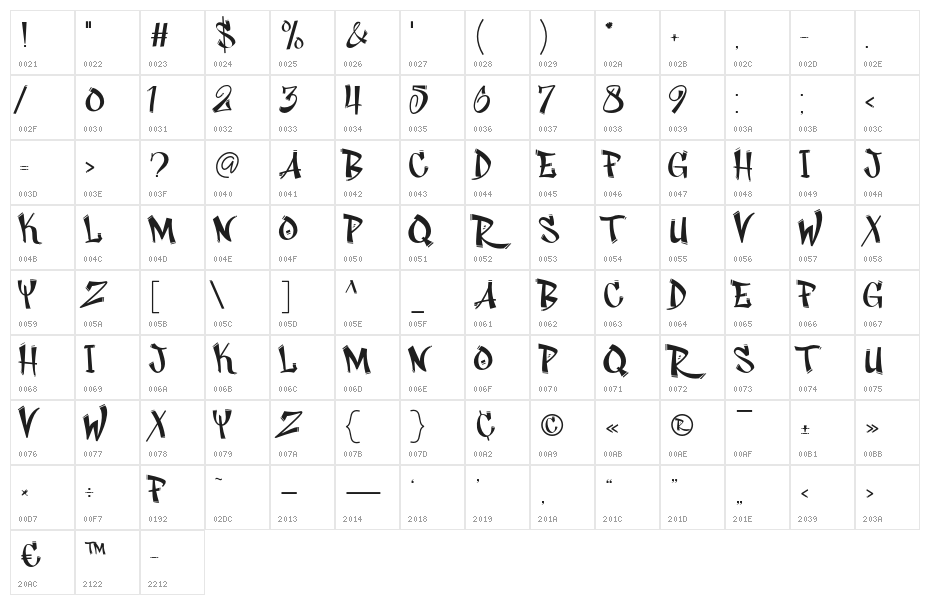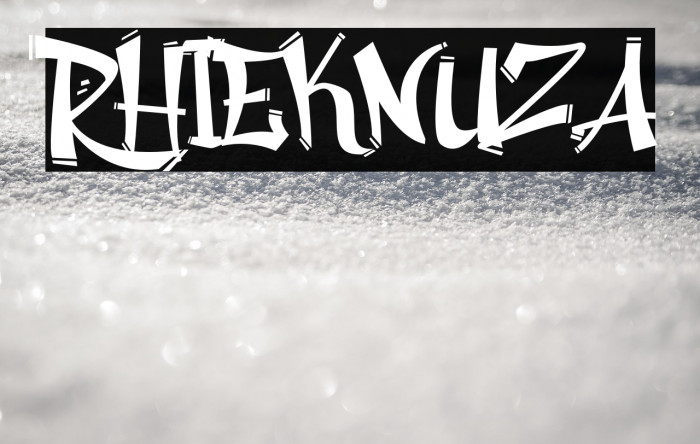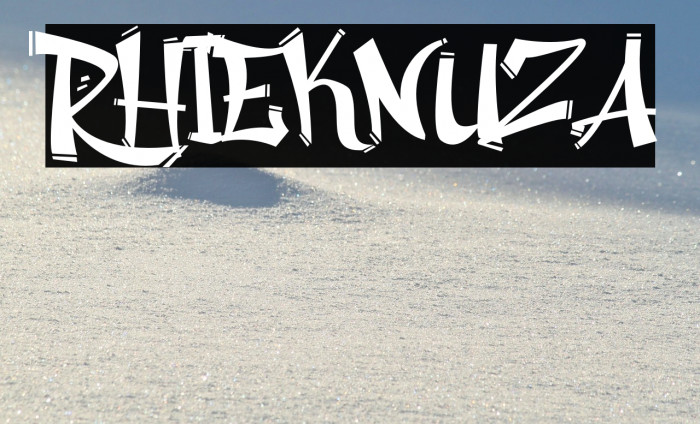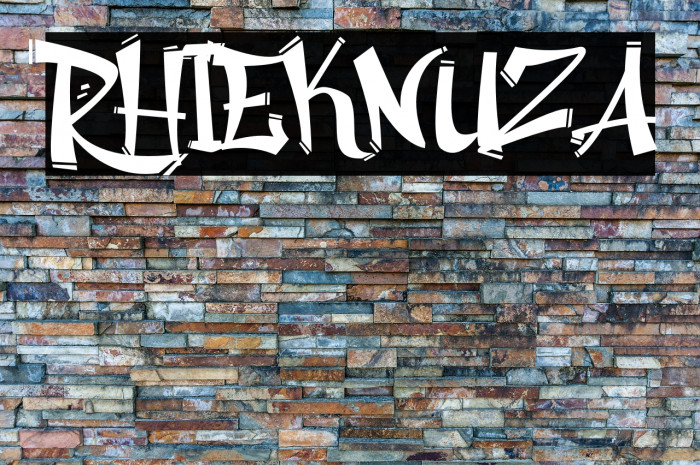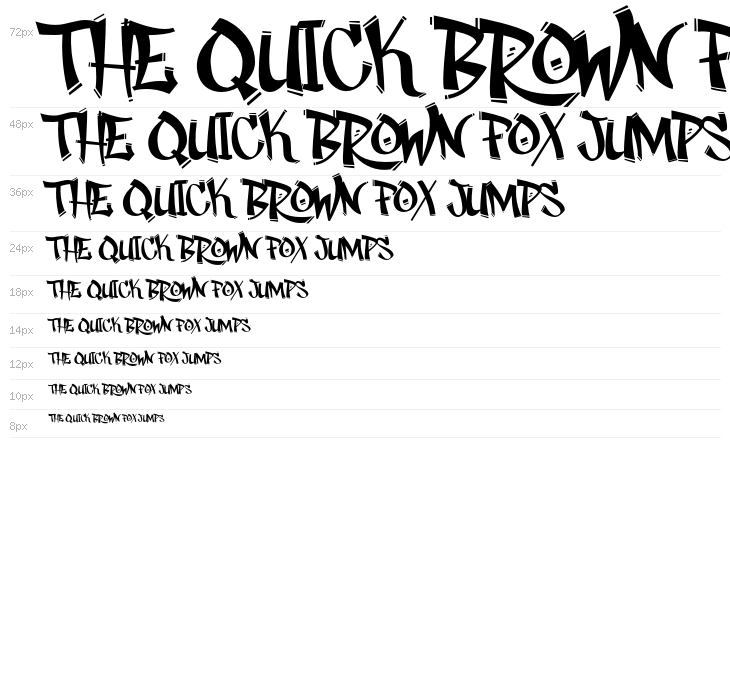
Rhieknuza Font
Rhieknuza Description
This font exhibits a bold and dynamic graffiti-inspired style, characterized by sharp angles and exaggerated curves. The uppercase letters are particularly striking, with a sense of movement and energy that suggests a street art influence. The lowercase letters maintain this energetic style, offering a cohesive look across the alphabet. Numbers and special characters are equally bold, ensuring consistency throughout. The font's unique style makes it ideal for projects that require a strong visual impact, such as posters, album covers, or urban-themed designs. Its boldness and distinctive character make it stand out in any application.
| Overall Style | Modern, Urban, Graffiti |
| Proposed Projects | Ideal for street art designs, urban-themed posters, album covers, and bold branding projects. |